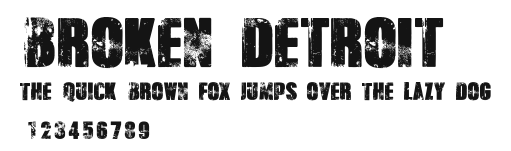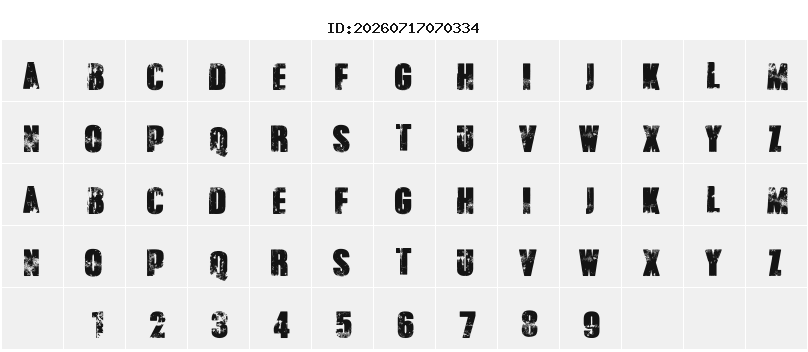
Broken Detroit Preview
• Font Name: Broken Detroit
• Full Font Name: Broken Detroit
• Version: Version 1.00 2013
• Manufacturer: Hypefonts / Guilhem GRECO
Broken Detroit.ttf is a modern, elegant sans-serif font designed for ultimate readability and visual harmony. Perfect for branding, headlines, web design, and print materials.